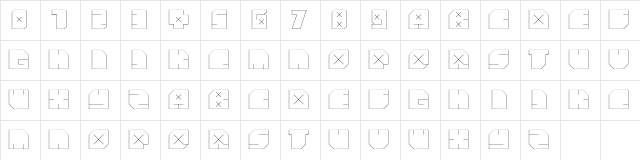
andrefist Medium (normal)
Style: Medium (normal)
Foundry: dmfstudio
Design Context for andrefist
andrefist is a composed and adaptable typeface that performs quietly and consistently across a wide range of design contexts.